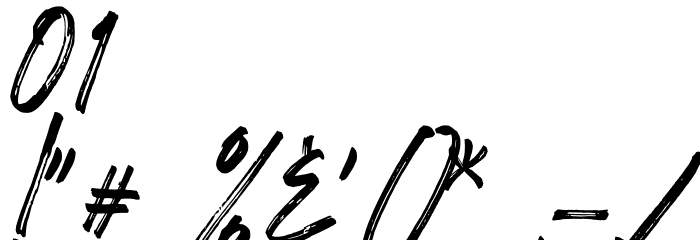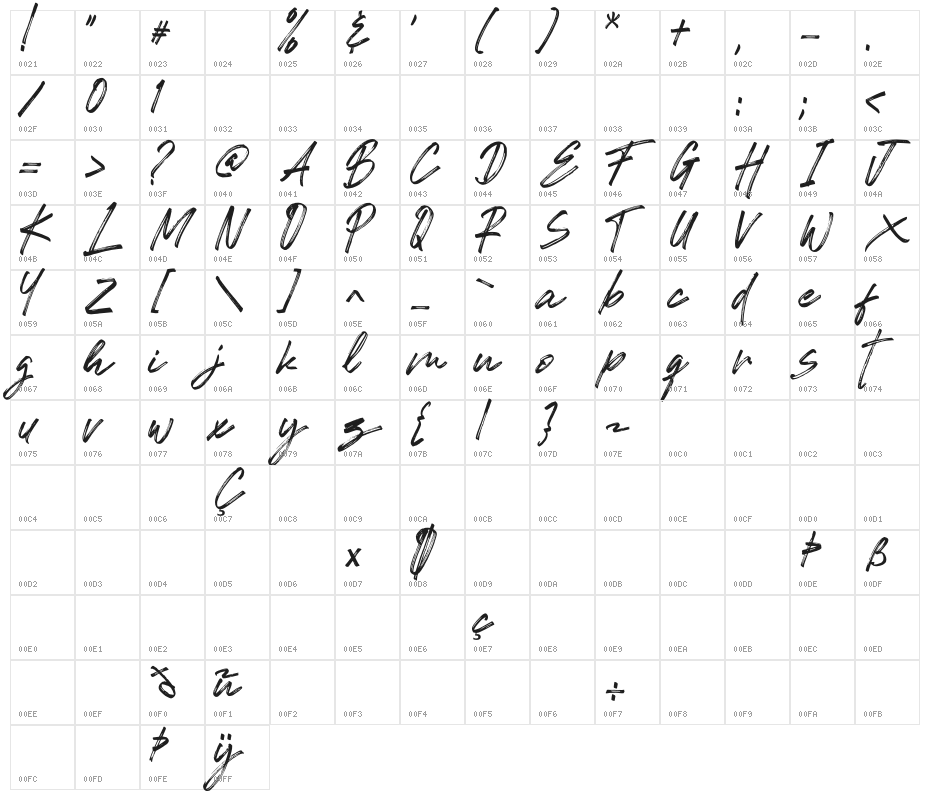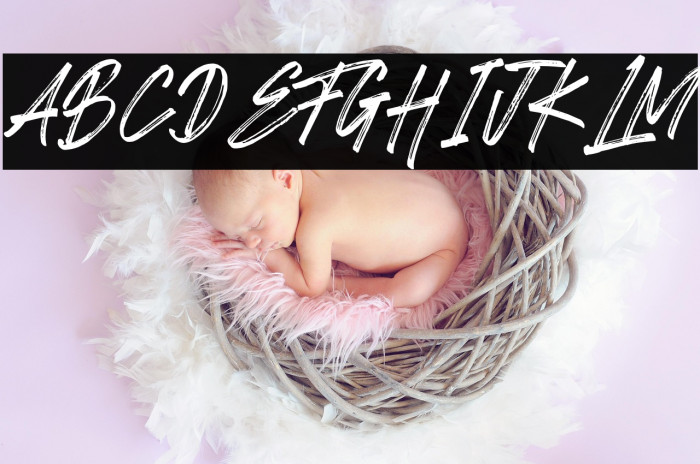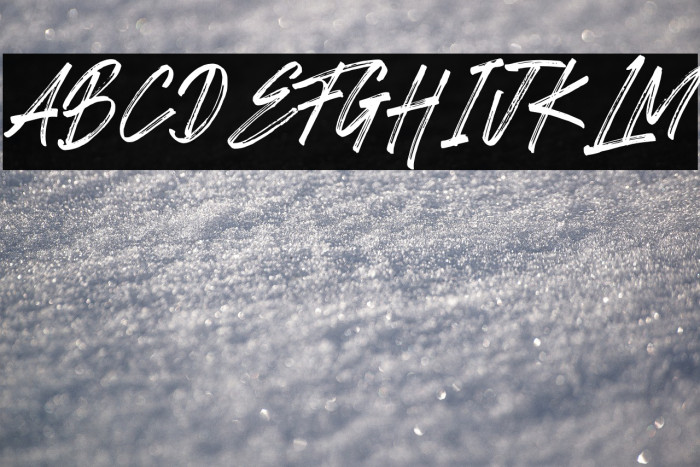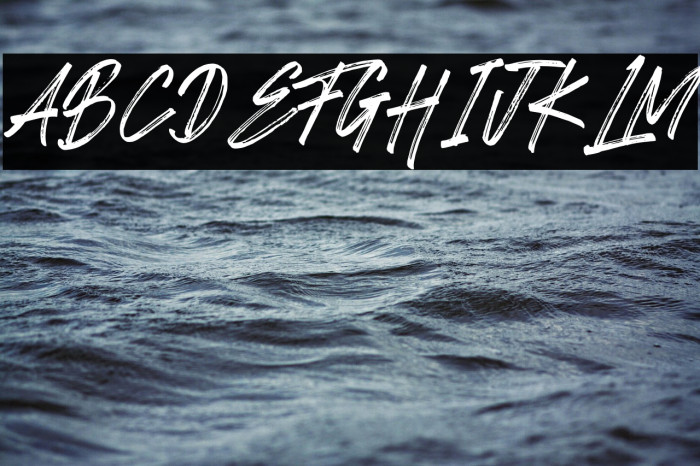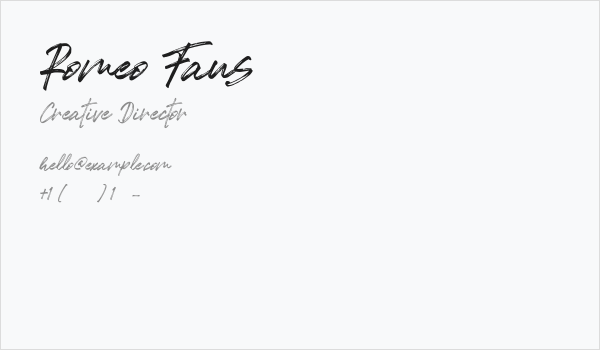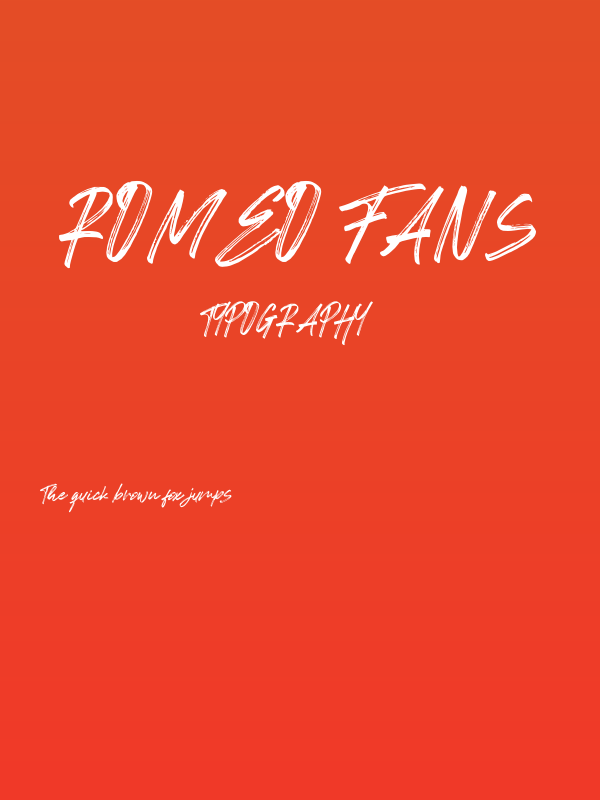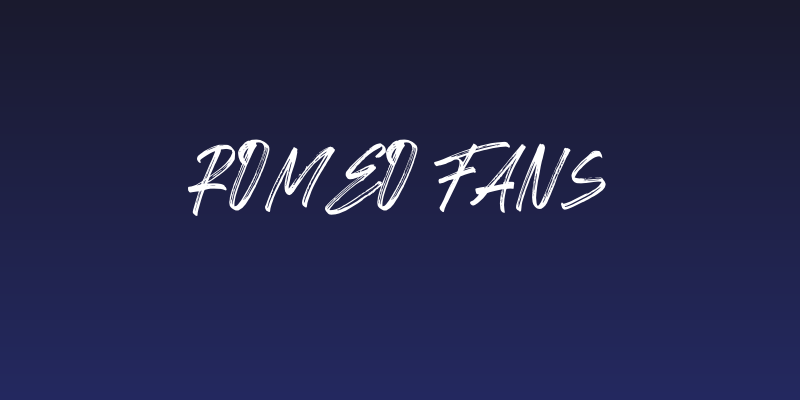
Romeo Fans Font
Romeo Fans Description
This font exudes a dynamic and expressive style, characterized by its bold, handwritten appearance. The strokes are thick and energetic, giving a sense of movement and flair. Each letter is uniquely crafted, with varying angles and curves that add to its artistic appeal. The uppercase letters are particularly striking, with a sense of urgency and spontaneity, while the lowercase letters maintain a consistent flow. The numbers and special characters follow the same lively style, making them stand out. This font is perfect for projects that require a personal touch or a statement piece.
| Proposed Projects | Ideal for branding, posters, album covers, and creative projects that need a bold, personal touch. |